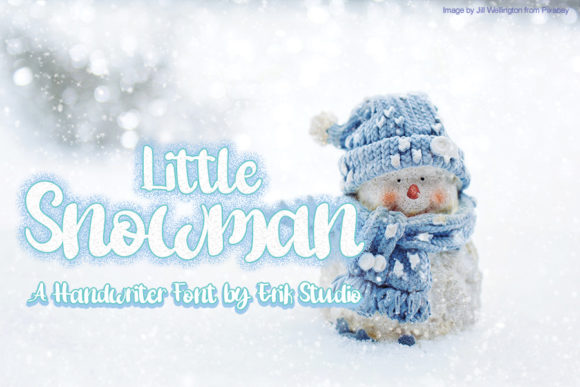
Embark on a typographic adventure with Little Snowman, a whimsical script font that dances across your screen like freshly fallen snow. Crafted with meticulous care by Erik Studio, this playful font exudes a sense of joy and wonder, transforming your digital creations into captivating works of art.
Let Little Snowman's graceful curves and charming characters add a touch of magic to your website, social media posts, or graphic designs. Its versatility knows no bounds, making it the perfect companion for a wide range of projects, from whimsical invitations and eye-catching logos to enchanting children's books and heartwarming holiday greetings.
With Little Snowman as your trusty font, your words will dance and twirl, capturing the attention of your audience and leaving them spellbound. Its enchanting nature will evoke a sense of nostalgia and childlike wonder, creating an unforgettable experience for your readers or viewers.
Discover the boundless possibilities of Little Snowman and witness how its enchanting charm can transform your creative endeavors. Step into a world where imagination reigns supreme, and let Little Snowman guide you on a journey of typographic delight. Embrace the playful spirit of this font and watch as your words come alive, spreading joy and enchantment wherever they go.